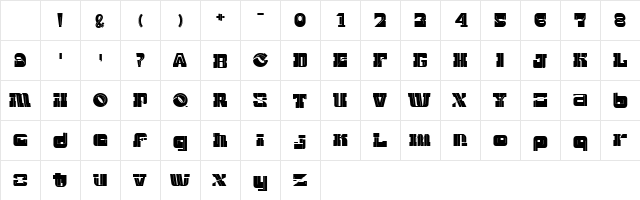
Crypto is a composed and adaptable typeface that performs quietly and consistently across a wide range of design contexts.
Pro Tip: Use Crypto in both headline and body roles to test its range before committing to a single application.